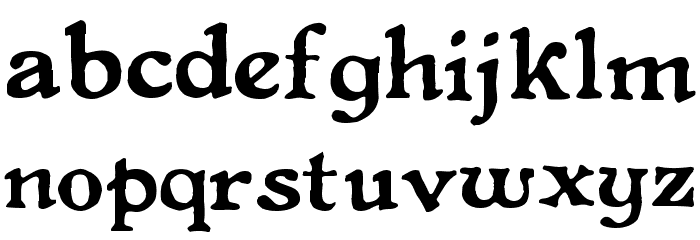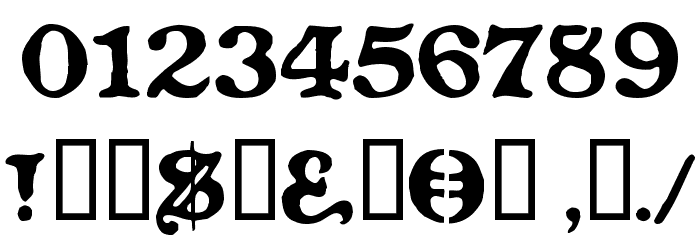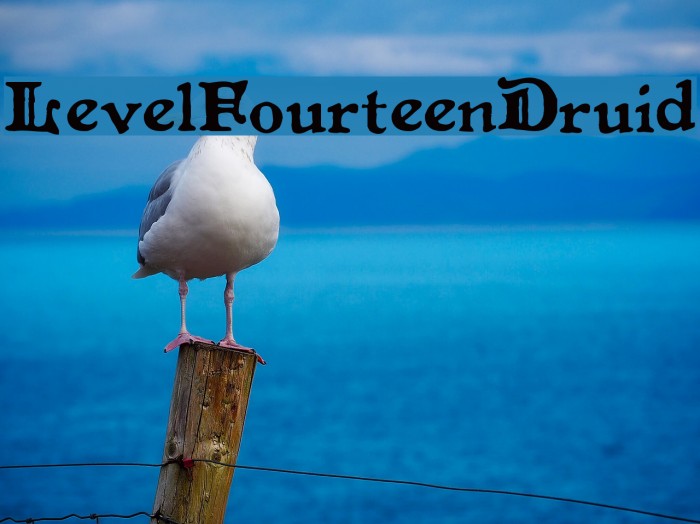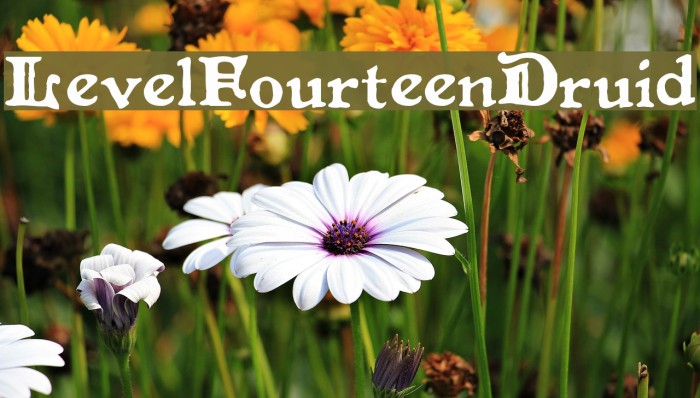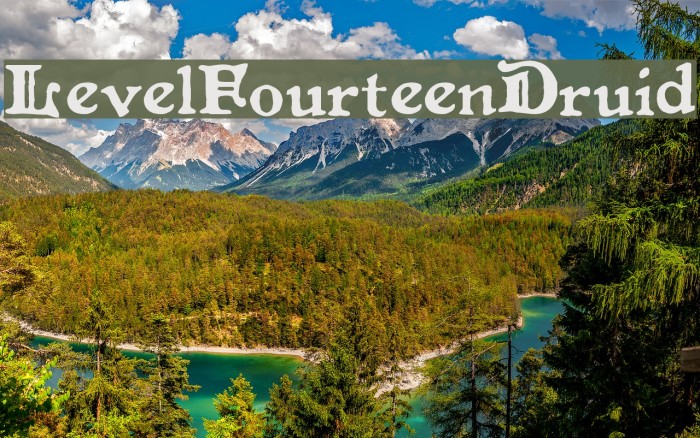
LevelFourteenDruid Font
This font exhibits a bold and dramatic style, characterized by its intricate and ornate design. The uppercase letters feature sharp, angular serifs and a distinct medieval flair, reminiscent of Gothic script. The lowercase letters maintain this elaborate style, with consistent stroke thickness and decorative elements that enhance their visual appeal. Numbers and special characters are equally stylized, ensuring a cohesive look across all glyphs. The font's unique appearance makes it suitable for projects that require a touch of historical or fantasy elements, providing a striking visual impact.
A bold, Gothic-inspired font with ornate, angular serifs and decorative elements.
- Proposed Projects: Ideal for fantasy-themed designs, historical publications, book covers, and decorative signage.
- Use Case: Logos, Headlines, Decorative text